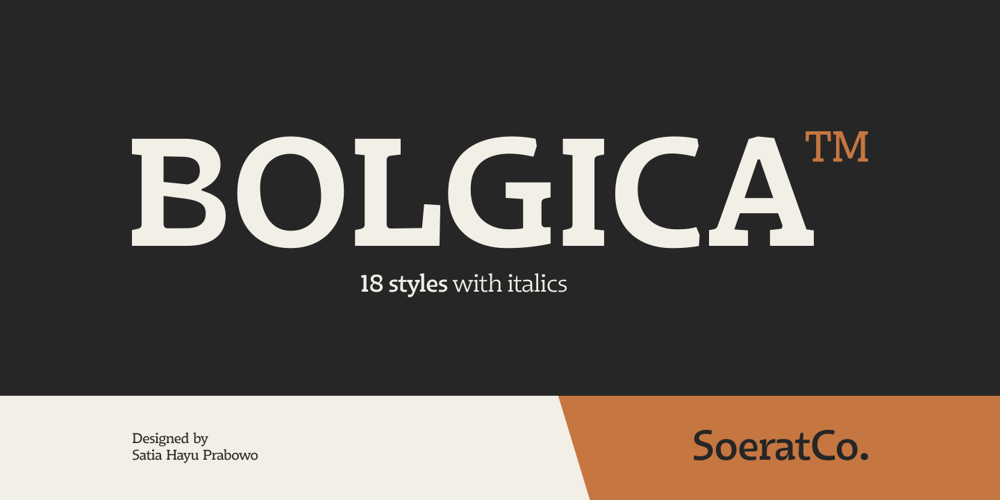
Bolgica
Bolgica font
Bolgica Font Family was designed by Satia Hayu Prabowo and published by Soerat Company. Bolgica contains 20 styles and family package options. Bolgica is a Neo-grotesque slab serif inspired by the slab serifs of the 1800’s century. By combining modern elements in several letter characters, the Bolgica family is very suitable for various design needs such as advertising, packaging, logos, editorial and publishing, branding and other creative industries.The family has 9 weights, as well as the matching true italics forms, provides typographical support with features such as ligatures, alternate characters, case-sensitive forms, fractions, and super and subscript characters. It comes with a complete range of figure set options – old style and lining figures, each in tabular and proportional widths. With over 752 glyphs per style, Elioth supports around 150+ languages in Latin and Cyrillic script.Family overview: 9 weights (from Thin to Heavy) + italics Extended Latin Cyrillic 726 glyphs Variable Font 150+ languages OpenType Features: Localized Forms Subscript and scientific inferiors Superscript (Superiors) Numerators and Denominators Fractions Lining Figures Tabular Figures Oldstyle Figures Circled Number Case-Sensitive Forms Standard and Discretionary Ligatures Stylistic Alternates Contextual Alternates